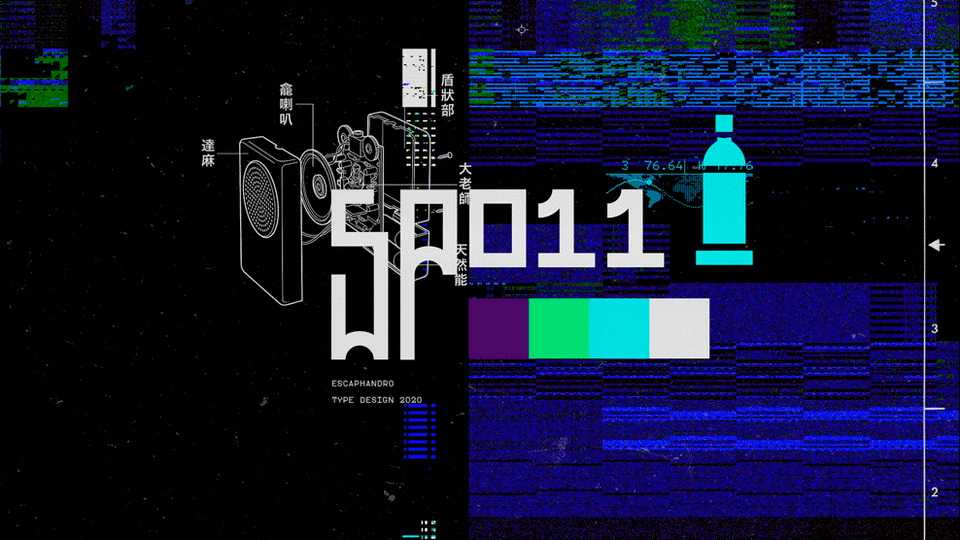
DOwnload SP 011 Pro font, a unique display typeface with a geometric and modular construction. SP 011 Pro is the new version of a font inspired by the São Paulo pixo graffiti writing and Eastern European characters.